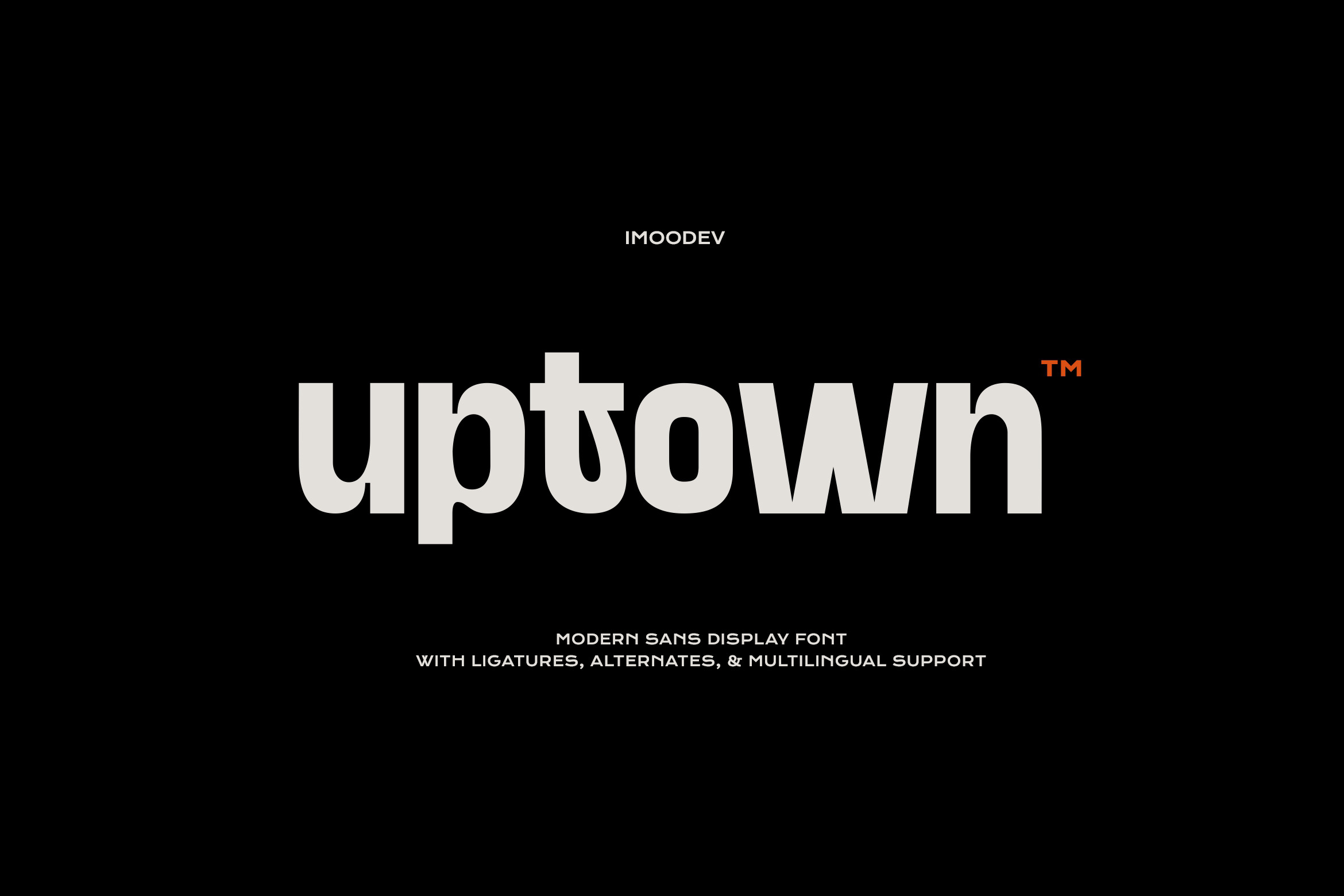
Uptown - Modern Sans Display Font
Uptown is a striking contemporary geometric sans serif display typeface that perfectly balances clean minimalism with playful, experimental edge. Designed for modern brands and bold creatives, this typeface stands out through its unique stylistic alternates and neo brutalist aesthetic.
Uptown conveys a sense of modernity and confidence, making it ideal for creative studios, urban brands, and bold visual identities.
This font can be used in various branding scenarios, movie titles, bold headlines, streetwear apparel design, brutalist web design, music festival posters, modern logo marks, album artwork, editorial layouts, such as large signage, and business cards.
Uppercase and Lowecase Characters.
Numerals and Punctuations.
Alternates and Ligatures.
Multilingual Support.